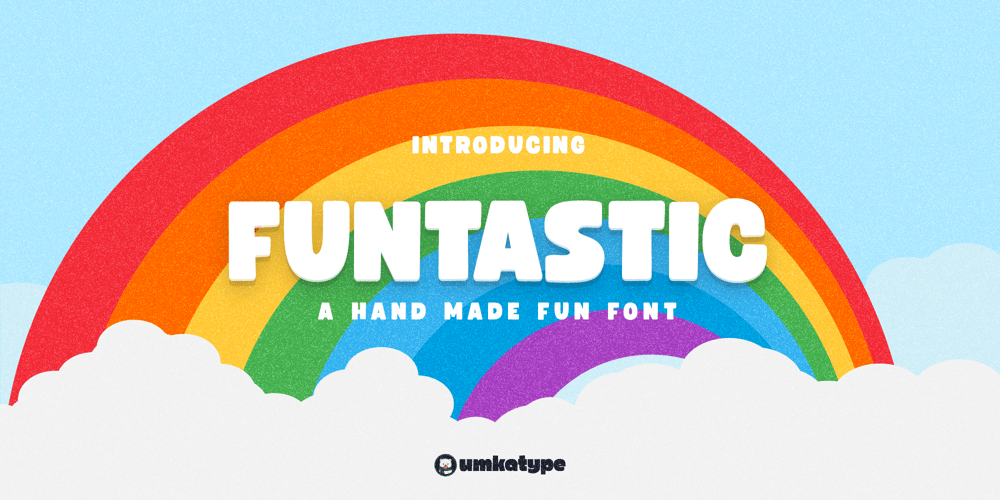
Funtastic Font Family was designed by Alper Çakıcı and published by Umka Type. Funtastic contains 1 styles and family package options. Funtastic is a carefully crafted fun font.Multilingual: It has Extended Latin and Extended Cyrillic letters.It’s created for games, web design, branding and social media works.